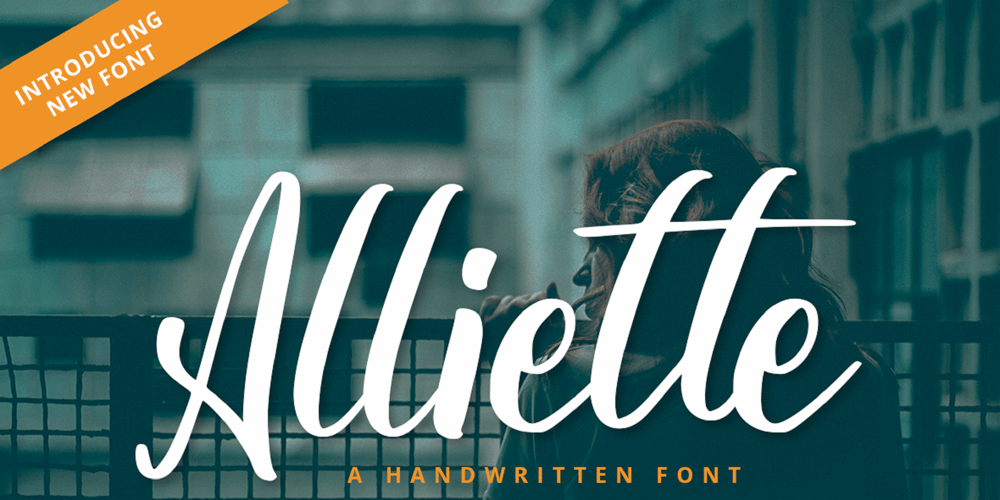
Alliette Font Family was designed by Heri Imanudin and published by Krafted. Alliette contains 1 styles and family package options. Introducing Alliette – A Handwritten FontOne of the most elegant,exquisite yet strong font, can be used for loads of different projects, advertisements and promotions. Go ahead and use it on your website, for your social media branding, Pinterest banners, printed invitations, and more!Inspire your audience, clients, or guests with this stylish, handwritten font. What you’ll get: Multilingual & Ligature Support Full sets of Punctuation and Numerals Compatible with: Adobe Suite Microsoft Office KeyNote Pages Software Requirements: The fonts that you’ll receive in the pack are widely supported by most software. In order to get the full functionality of the selection of standard ligatures (custom created letters) in the script font, any software that can read OpenType fonts will work. We hope you enjoy this font and that it makes your branding sparkle! Feel free to reach out to us if you’d like more information or if you have any concerns.